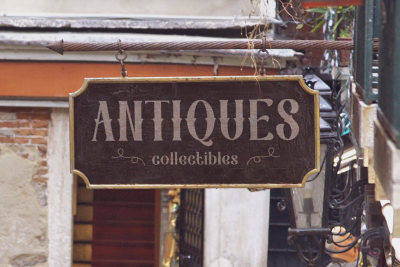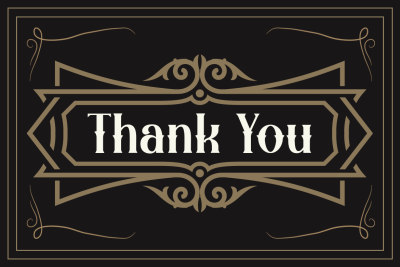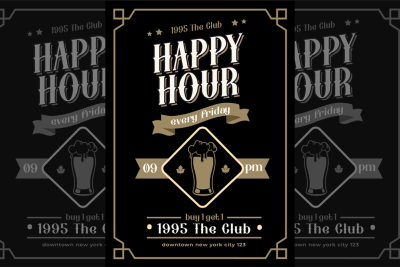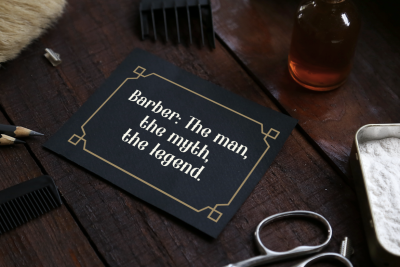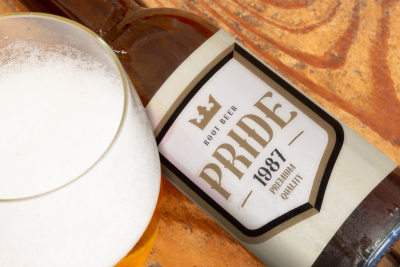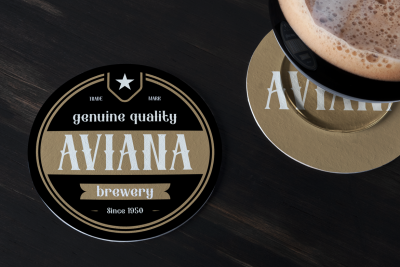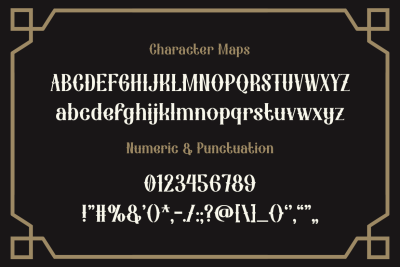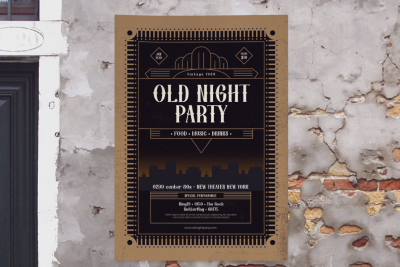
Tattoo font Ink Pearcer is a bold, vintage display typeface that combines a classic look with modern flair. Its thick, striking letterforms make it perfect for designs needing a strong visual presence. With sharp edges and curved details, this font evokes old-world craftsmanship while maintaining a modern, edgy vibe. The elegant design and bold characters allow Ink Pearcer to stand out, especially in projects that aim to make a statement.
Additionally, the decorative elements of this font give it a distinct style that shines in both print and digital formats. The mix of traditional serif styling with contemporary twists enhances its versatility, making it suitable for a wide range of design projects. Whether for posters, branding, or tattoo designs, Tattoo font Ink Pearcer delivers an impactful and timeless appeal. The unique letter shapes grab attention, adding sophistication to any creative work.
Tattoo Font Ink Pearcer Perfect For
Ink Pearcer is ideal for graphic designers, tattoo artists, and brands seeking a vintage yet bold aesthetic. Its thick, decorative letterforms work well for tattoo designs that demand attention, especially for lettering that stands out on the skin. Tattoo artists can create intricate, classic tattoo styles with a modern boldness using Ink Pearcer.
This font is also a great choice for branding and logo design, especially for businesses that want to convey strength and tradition. Whether used in vintage-style logos, product packaging, or signage, Ink Pearcer helps brands establish a strong visual identity. Itโs especially well-suited for businesses focused on craftsmanship, such as tattoo studios, barbershops, coffee shops, and artisanal enterprises.
Additionally, Tattoo font Ink Pearcer excels in posters, event flyers, and promotional materials. Its bold design makes it perfect for large headlines and display text, instantly drawing attention. The font is also ideal for vintage-themed projects, where an authentic, retro feel is essential.
Designers working on creative projects that blend elegance with boldness will find Ink Pearcer a timeless solution. Its vintage roots, combined with modern elements, make it perfect for any design aiming to leave a lasting impression.
In conclusion, Tattoo font Ink Pearcer offers versatility and boldness for a variety of uses. Its combination of classic and modern design elements makes it perfect for tattoo artists, graphic designers, and brands seeking a distinctive and impactful font. Whether for tattoos, branding, or event materials, Ink Pearcer adds vintage flair and timeless strength to every project.